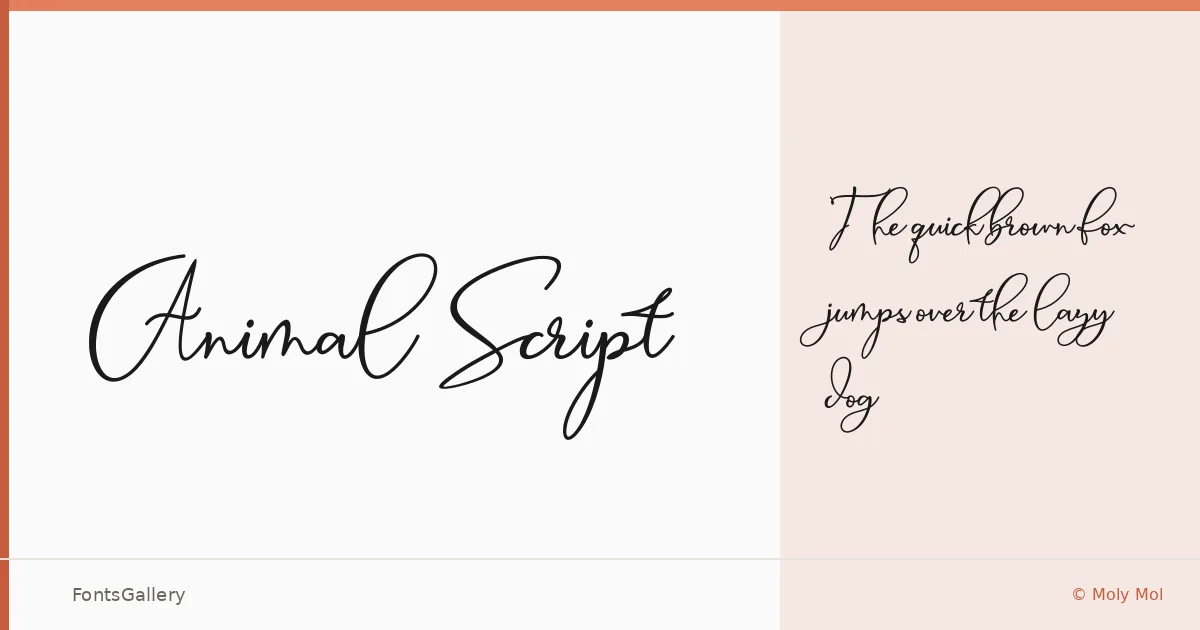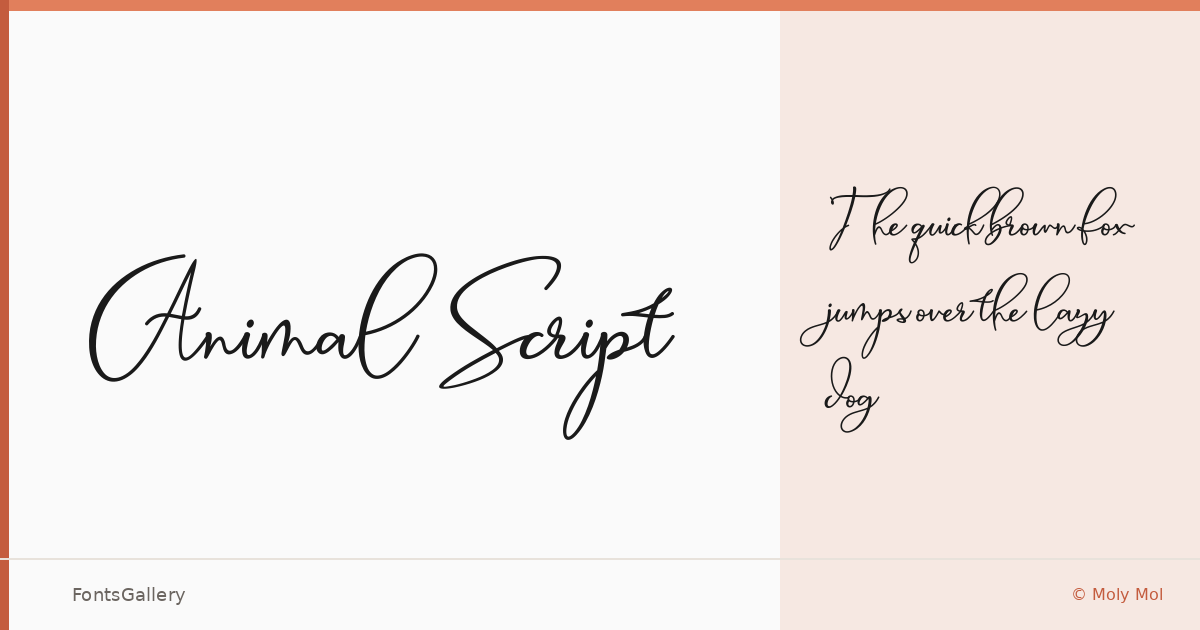
About Animal Script Font
There is a natural fluency to this script — the kind of hand-drawn elegance that feels considered rather than rushed. Designed by Moly Mol, Animal Script comes as a single Regular weight, a deliberate choice that keeps the focus entirely on the quality of the letterforms themselves rather than the breadth of a system.
The face sits firmly in the classic, romantic end of the script spectrum — flowing connections, graceful curves, and a mood that reads as genuinely elegant without tipping into excess. As a TTF file, the Regular cut is straightforward to deploy, and the restrained single-style offering means what you see is exactly what you work with: one carefully drawn voice, no interpolation, no compromise.
The letterforms are well suited to wedding stationery, invitation cards, and greeting cards where a handcrafted warmth matters, and the overall presence holds together equally well in branding and logo work where a romantic or classic tone is the brief. For contrast and balance, it pairs with Canela, Helvetica, ABC Arizona, Abrade, and Anglecia Pro — each offering a different degree of structural counterpoint to the script's looseness.